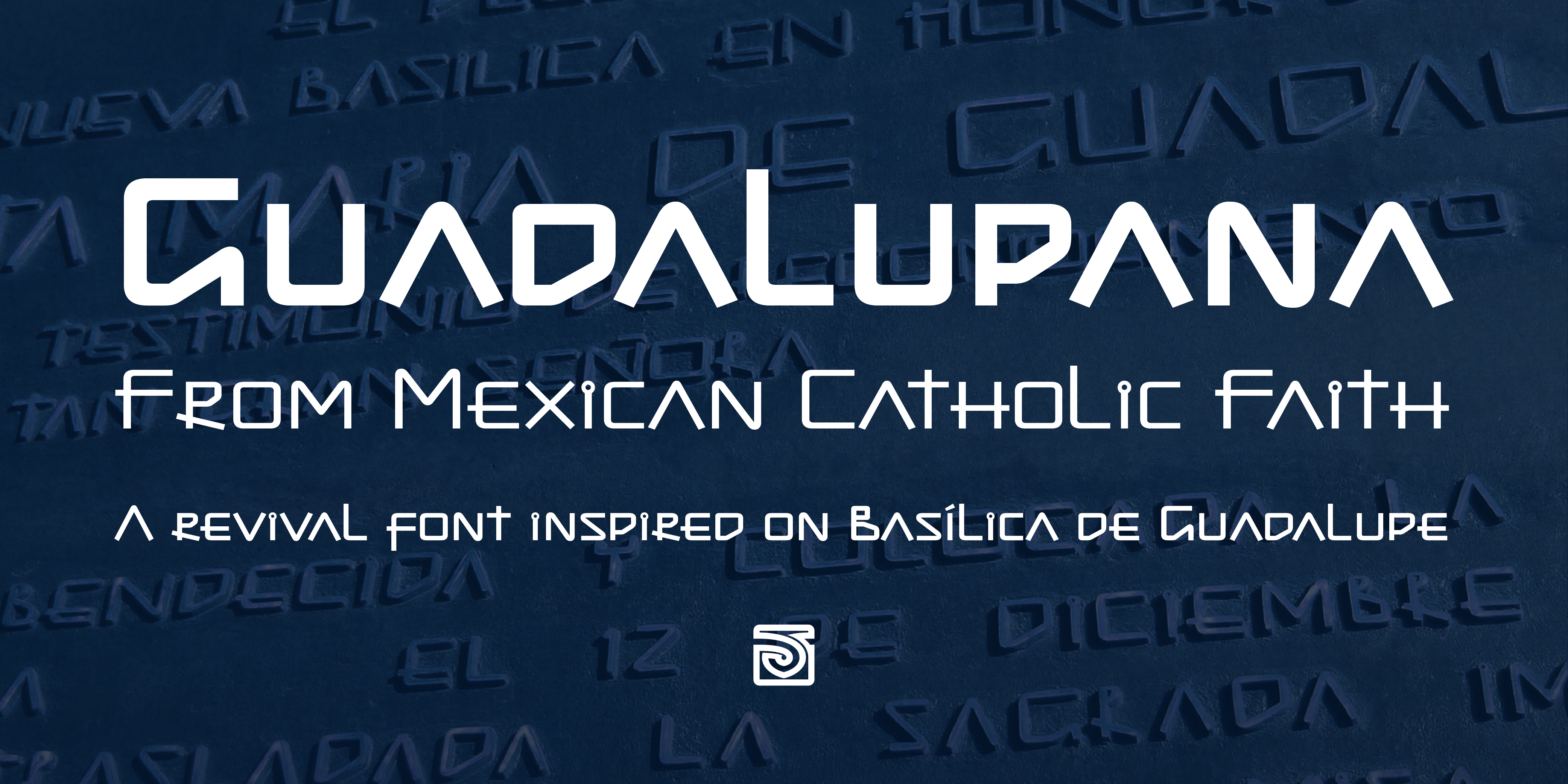
Guadalupana
Designed by John Beltrán, Guadalupana is a display sans font family. This typeface has three styles and was published by JVB Fonts.
On October 12th 1976 a new basilica was inaugurated in honor and in gratitude to the Patron Saint, the Virgin of Guadalupe, loved by the Mexican people. This basilica was designed by the Mexican architect Pedro Ramírez Vázquez (died on April 16th 2012). It stands out by its hug spacious interior, generously decorated with bronze elements. The aesthetic value of these items even includes many signs and text inscriptions in a particular typeface and style, of which this font is a reinterpretation. The purpose of this project is to revival this eclesiastical written letter forms in bronze and taking them to digital format. I was inspired to this on my last trip to Mexico in September of 2012.